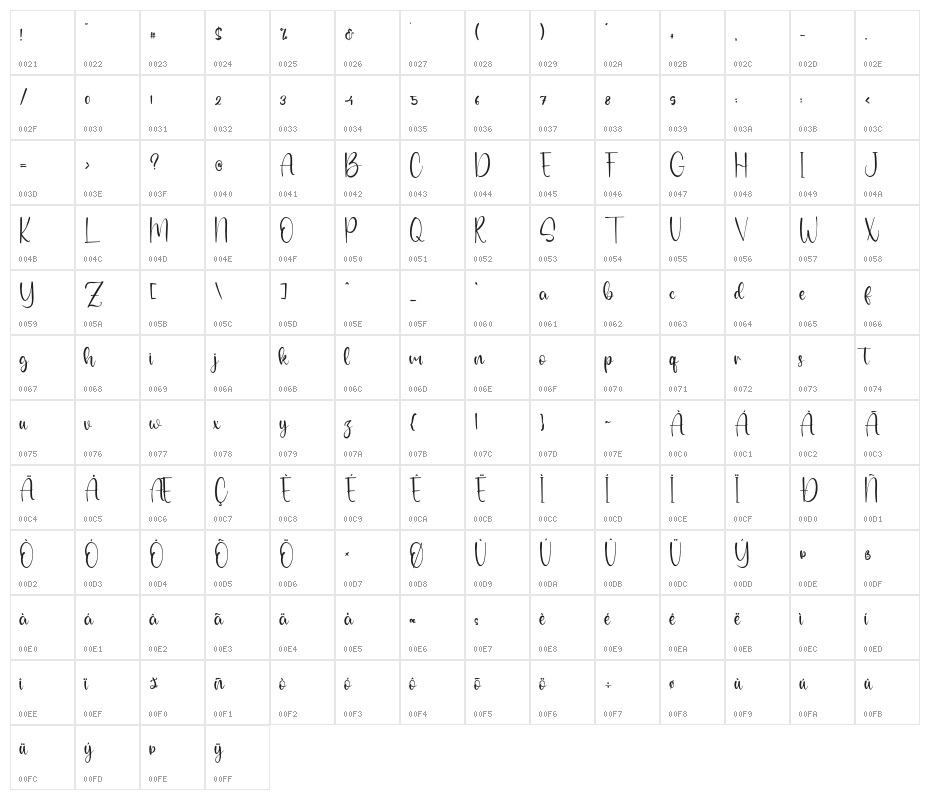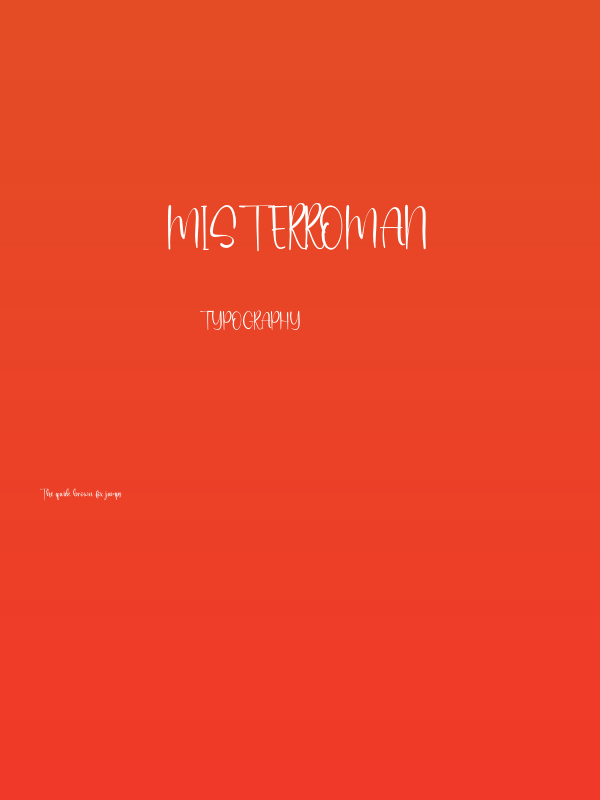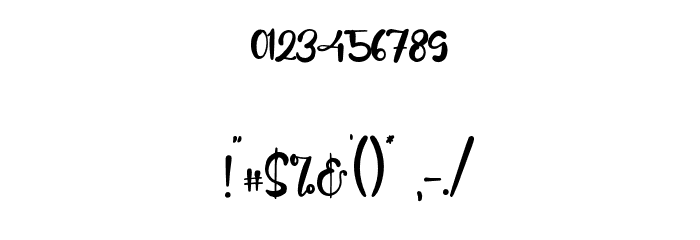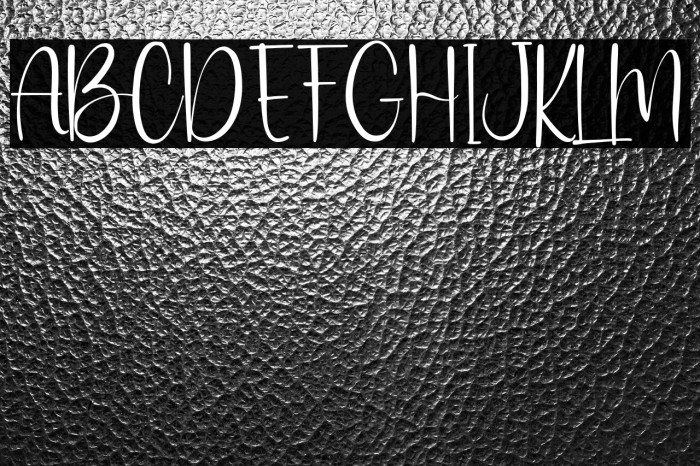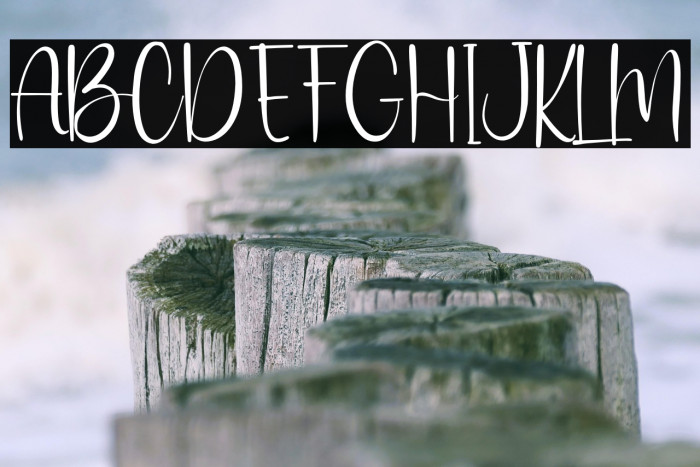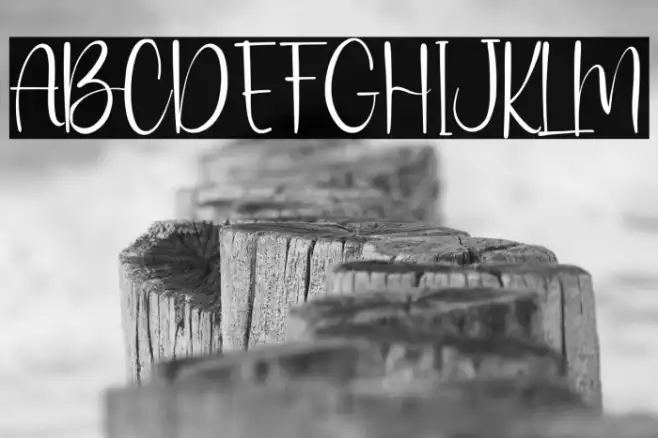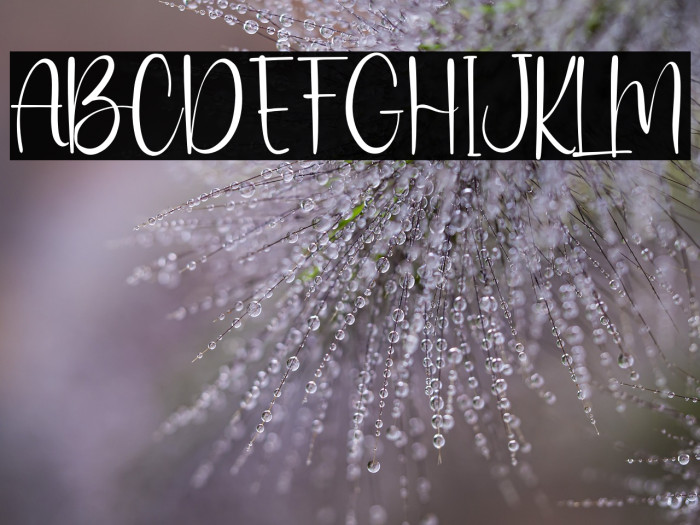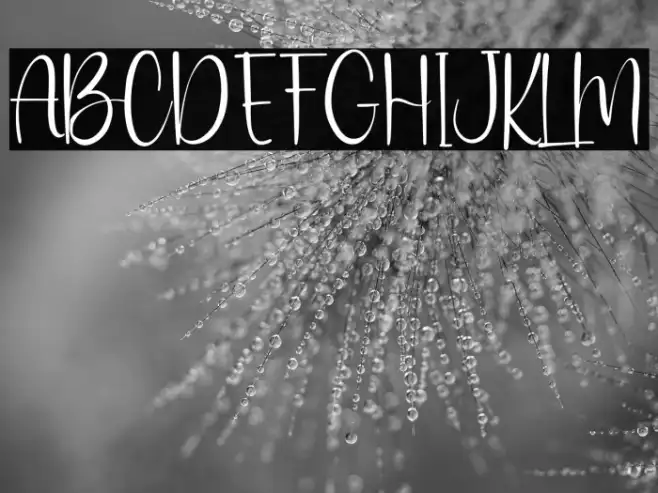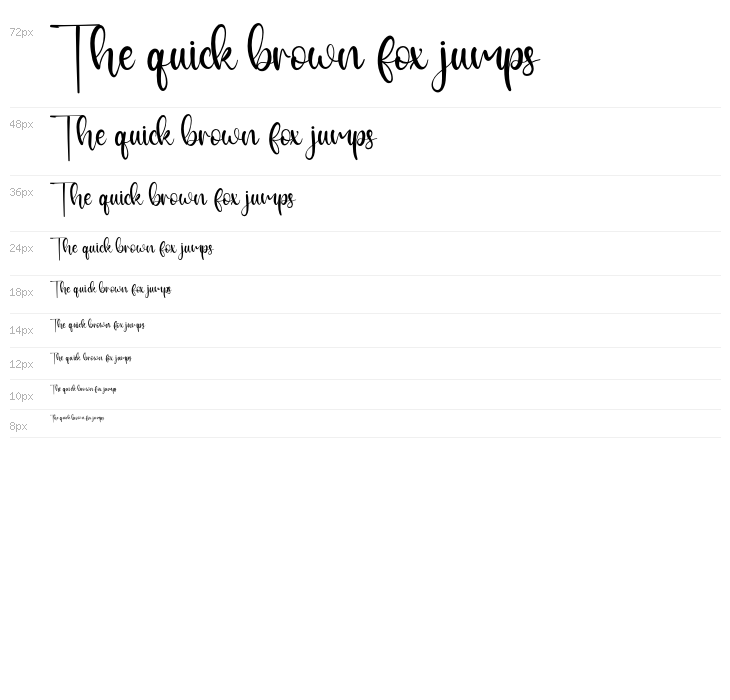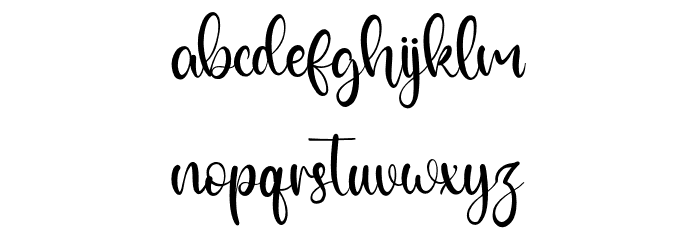
MisterRoman Font
MisterRoman Description
This font features a playful and whimsical style, characterized by its flowing, cursive-like strokes and varying line thickness. The uppercase letters are tall and slender, with a slight slant that adds a dynamic feel. The lowercase letters maintain a consistent, rounded form, enhancing readability while retaining an artistic flair. Numbers and special characters are crafted with the same attention to detail, ensuring a cohesive look across all text. The overall design is both elegant and approachable, making it suitable for a variety of creative applications.
| Proposed Projects | Ideal for invitations, greeting cards, branding, and creative projects that require a touch of elegance and playfulness. |